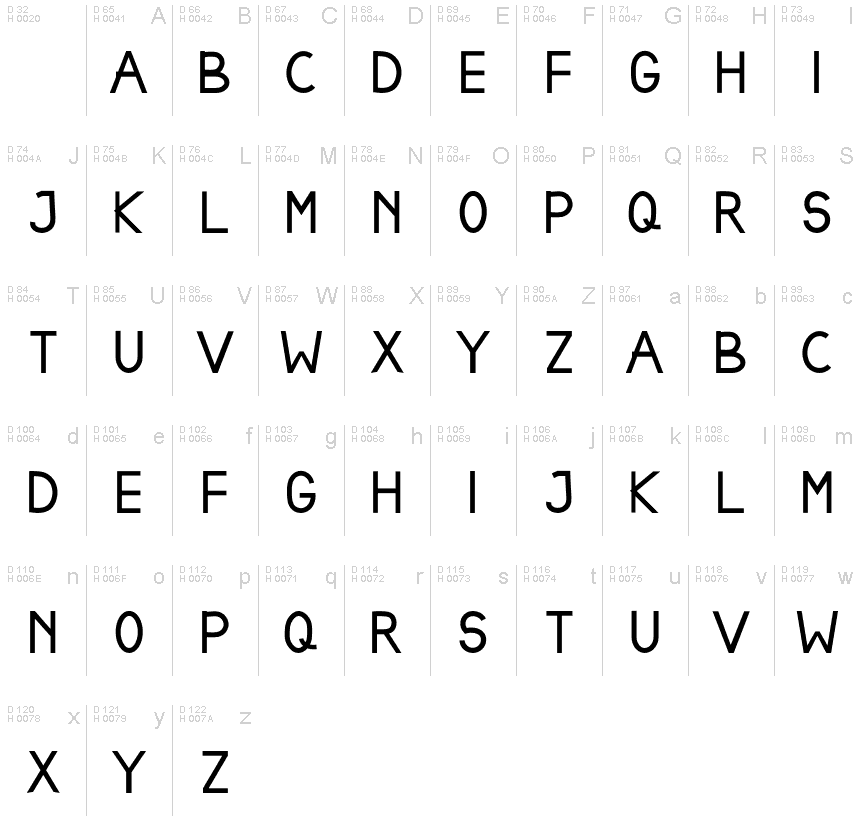
NENDI
NENDI, a striking creation by font designer Nendi Emelia, embodies elegance and versatility. With its clean lines and sleek sans serif style, this semi-light font adds sophistication to any project. Its semi-condensed width allows for efficient use of space without sacrificing legibility. Ideal for contemporary designs, branding materials, and editorial layouts, NENDI effortlessly conveys a modern aesthetic. Whether crafting minimalist logos or designing eye-catching websites, this font brings a touch of class to your creations. Let NENDI elevate your next project with its refined charm and timeless appeal.